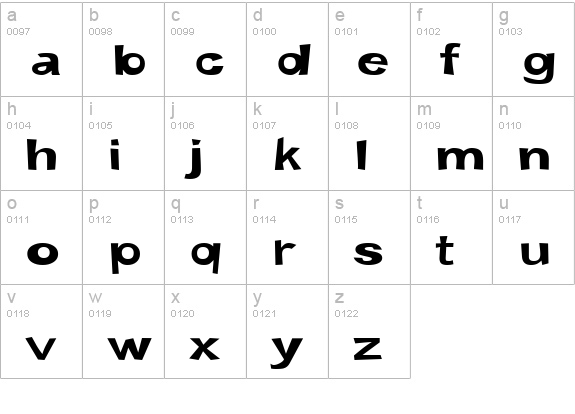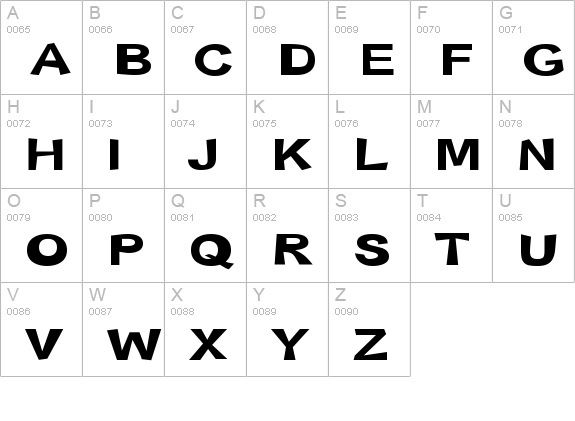
Snott Bold Font Details
Snott Bold is a strong, high-contrast variant in the Snott typeface family \xE2\x80\x94 well suited to headlines, attention-grabbing titles, and strong calls-to-action.
Introducing Snott Bold font, a visually striking and attention-grabbing typeface designed to make a bold statement. With its unique and edgy design, Snott Bold adds a touch of personality and character to any project. Whether you're creating eye-catching headlines, designing logos, or crafting impactful advertisements, this font is sure to capture the attention of your audience. Snott Bold font features a strong and commanding presence, with its thick and exaggerated letterforms that exude confidence and strength. Its unconventional and unconventional shapes give it a distinct and memorable look, making it perfect for those who want to stand out from the crowd. Not only does Snott Bold font have a captivating design, but it also offers the convenience of being freely available to download. You can easily access and utilize this font for both personal and commercial projects, without any hidden costs or restrictions. Simply head over to FontsMarket.com and get your hands on this remarkable font, and start creating stunning designs that leave a lasting impression. With Snott Bold font, your creativity knows no bounds. Its versatility allows it to be used in a variety of design applications, from print materials such as posters, brochures, and packaging, to digital media like websites, social media graphics, and presentations. The powerful impact of this font will ensure that your message is delivered with utmost impact and clarity. Don't settle for ordinary fonts when you can add a touch of Snott Bold's uniqueness and flair to your designs. Download this exceptional font today, and unleash your creativity like never before. Remember, Snott Bold font is freely available for download at FontsMarket.com, making it an irresistible choice for designers and creatives alike. Elevate your designs and make a lasting impression with Snott Bold font.